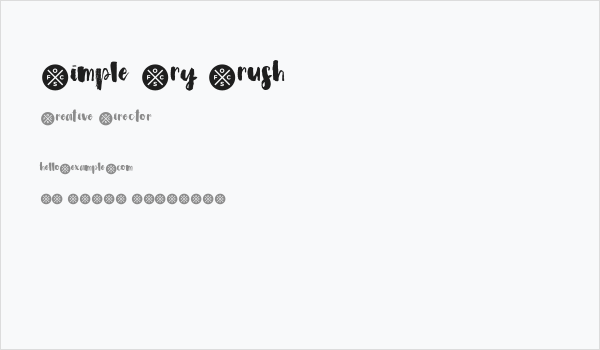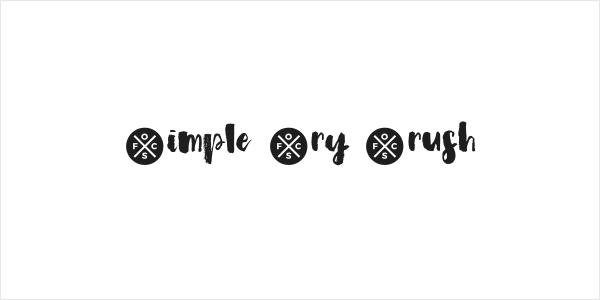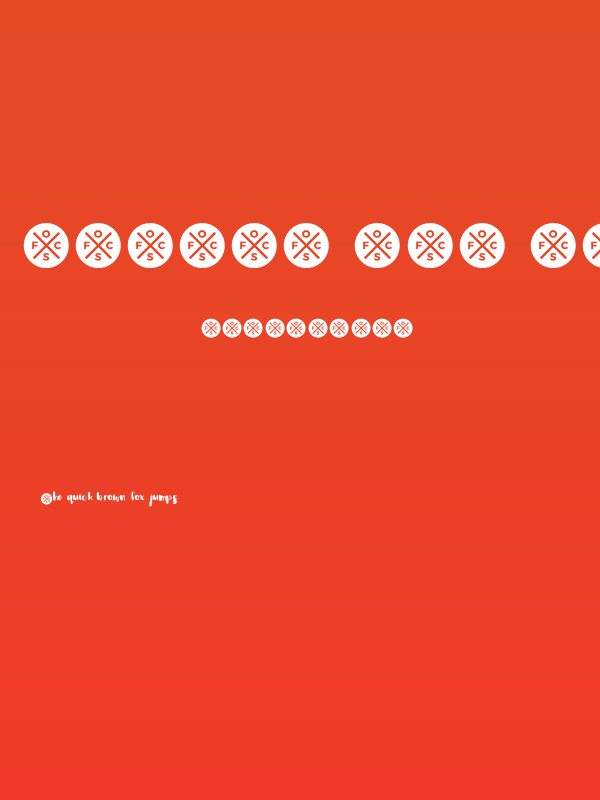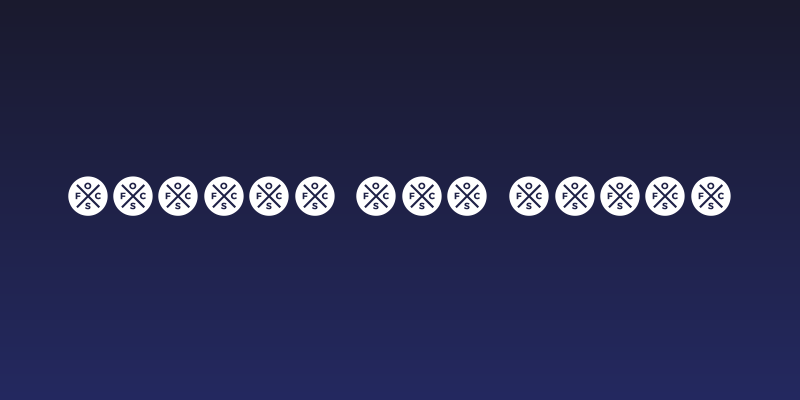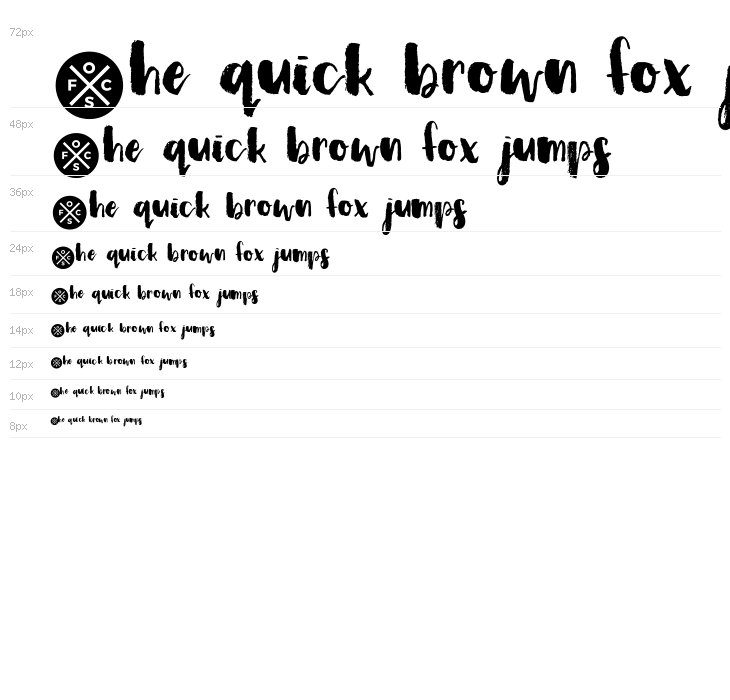
Simple Dry Brush Font
Simple Dry Brush Description
This font features a bold, expressive style that mimics the texture and flow of brush strokes. Each character is crafted with a dynamic, hand-painted appearance, giving it a raw and artistic feel. The letters are slightly irregular, adding to the authentic brush-drawn effect. This font exudes a sense of creativity and spontaneity, making it ideal for projects that require a personal touch. The bold strokes and varying thicknesses create a striking visual impact, while the overall design maintains a sense of balance and harmony. Perfect for artistic and creative applications, this font stands out with its unique and lively character.
| Overall Style | Artistic, Expressive |
| Proposed Projects | Ideal for art projects, creative branding, posters, and invitations that require a personal and artistic touch. |